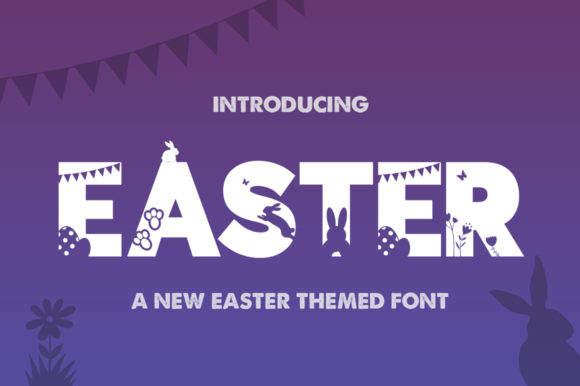
Easter Font: A Magical Display Font for Your Easter Designs
Easter is just around the corner, and what better way to celebrate than with a beautiful and unique Easter-themed font? Look no further than the Easter Font, a magical display font that combines timeless elegance with fun and cute Easter-themed silhouettes. In this article, we’ll take a closer look at this stunning font and explore its features, benefits, and uses.
What is Easter Font?
Easter Font is a carefully crafted display font that is perfect for creating original and outstanding designs. Its classic style is reminiscent of traditional Easter decorations, while its friendly feel makes it suitable for a wide range of projects, from Easter cards and invitations to social media graphics and website headers.
Key Features of Easter Font
- Timeless Elegance: Easter Font features an incredibly classic style that is both sophisticated and elegant.
- Cute Easter-themed Silhouettes: The font includes a range of fun and adorable Easter-themed silhouettes, such as Easter eggs, bunnies, and flowers.
- Friendliness: Despite its classic style, Easter Font still manages to convey a friendly and approachable feel.
- Versatility: Easter Font is perfect for a wide range of projects, from digital designs to print materials.
Benefits of Using Easter Font
- Perfect for Easter and beyond: While Easter Font is perfect for Easter-themed designs, its classic style and friendly feel make it suitable for a wide range of projects throughout the year.
Uses for Easter Font
Easter Font is incredibly versatile, and can be used for a wide range of projects, including:
- Easter cards and invitations: Create beautiful and unique Easter cards and invitations that will impress your friends and family.
- Social media graphics: Use Easter Font to create eye-catching social media graphics that will help your business stand out.
- Website headers: Add a touch of Easter magic to your website with a stunning Easter Font header.
- Digital and print designs: Easter Font is perfect for both digital and print designs, from Easter-themed party decorations to printable Easter coloring pages.
Tips for Using Easter Font
Easter Font is a magical display font that is perfect for creating original and outstanding Easter designs. With its timeless elegance, cute Easter-themed silhouettes, and friendly feel, it’s the perfect choice for designers and crafters looking to add a touch of Easter magic to their projects. Whether you’re creating Easter cards and invitations, social media graphics, or website headers, Easter Font is sure to impress.